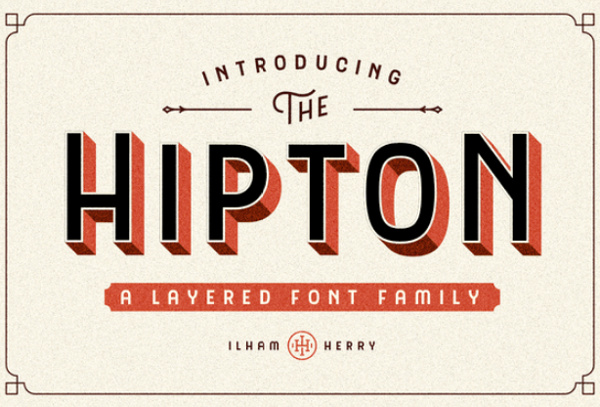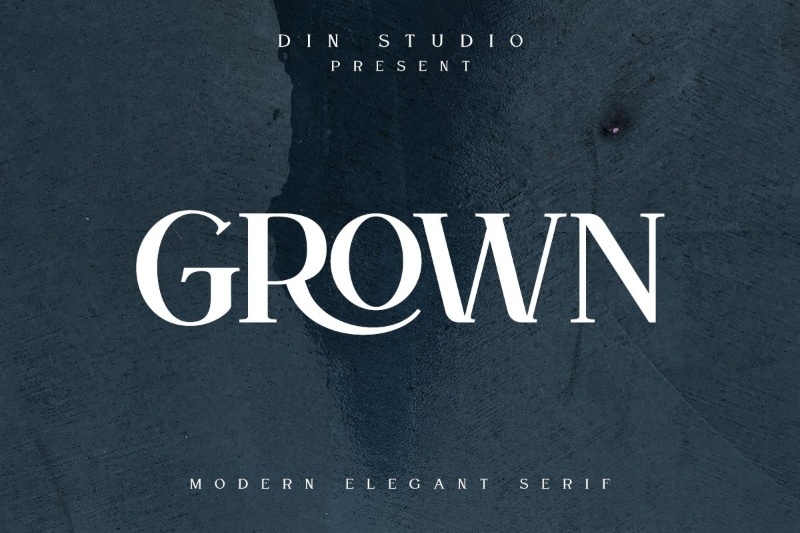
35+ Free & Premium Designer Fonts
Designer fonts are fonts web designers and graphic designers alike might use for creative products, such as logos and advertisements. Having a more fonts in your arsenal gives you more options in terms of creativity and can even make the design process much simpler as you won’t have to waste additional time hunting down new fonts to use.
1. Pacifico
Pacifico
Pacifico is a script font by Vernon Adams. The font draws inspiration from the surf and beach culture that existed in the United States throughout the 1950s. It comes in a single style and is available under Version 1.10 of the SIL Open Font License.
2. ChunkFive
ChunkFive
ChunkFive is a display/slab-serif font by The League of Moveable Type. This font was inspired by fonts used on woodcuts, broadsides and newspaper headlines of old American Western culture. It comes in a single style and is available under Version 1.10 of the SIL Open Font License.
3. Lobster
Lobster
Lobster is a “lovely, bold, condensed script font” by Impallari Type. This font was carefully designed and hand drawn to create ligatures that make it appear as though your letters are connecting with one another in a way that’s more elegant than some other script fonts. The font comes in a single style and is available under Version 1.10 of the SIL Open Font License.
4. Ostrich Sans
Ostrich Sans
Ostrich Sans is a sans-serif font by Tyler Finck. The font has a semi-vintage appeal, especially in the styles it’s available in. It comes in eight different styles and is available under Version 1.10 of the SIL Open Font License.
5. Kaushan Script
Kaushan Script
Kaushan Script is a crowdfunded, brushed-script font by Impallari Type. The font has been optimized as an artistic brush-script font as well as as a proper webfont that’s legible at any size. It comes in a single style and is available under Version 1.10 of the SIL Open Font License.
6. Sofia
Sofia
Sofia is a script font designed by Paula Nazal and Daniel Hernández LatinoType. It’s an upright script font that uses unconventional ligatures to form a “coquettish, friendly and versatile typeface.” The font comes in a single style and is available under Version 1.10 of the SIL Open Font License.
7. Dancing Script OT
Dancing Script OT
Dancing Script OT is a script font by Impallari Type. The font uses a hand-drawn cursive style to create an elegant and feminine script font. It comes in a single style and is licensed under Version 1.10 of the SIL Open Font License.
8. Grand Hotel
Grand Hotel
Grand Hotel is a script font designed by Brian J. Bonislawsky and Jim Lyles of Astigmatic. The designers created this font by drawing inspiration from the title screen of Cafe Metropole, a 1937 film starring Tyrone Power. The font is available in a single style and is licensed under Version 1.10 of the SIL Open Font License.
9. Allura
Allura
Allura is a script font designed by Rob Leuschke of TypeSETit. The font was created in a way that makes it elegantly stylish as well as legible. It comes in a single style and is available under Version 1.10 of the SIL Open Font License.
10. Euphoria Script
Euphoria Script
Euphoria Script is script font by TypeSenses. The designer created the design by hand by starting with a copperplate nib and adding the stroked endings of a brushed script when redrawing them digitally. The font comes in a single style and is licensed under Version 1.10 of the SIL Open Font License.
11. Black Diamond
Black Diamond
Black Diamond is brush-script font by Sam Parrett. It’s a hand-brushed script font that was created to be “raw, edgy and bursting with attitude.” It comes in one style but includes several different types of ligatures. The font is available under the Standard Creative Market License.
12. Hello Beautiful
Hello Beautiful
Hello Beautiful is a brush-script font by Nicky Laatz. The font comes in two styles and includes a pack full of hand-crafted swashes and alternates. These stylistic alternates are available in such design software as Adobe Illustrator and Photoshop. Hello Beautiful is available under the Standard Creative Market License.